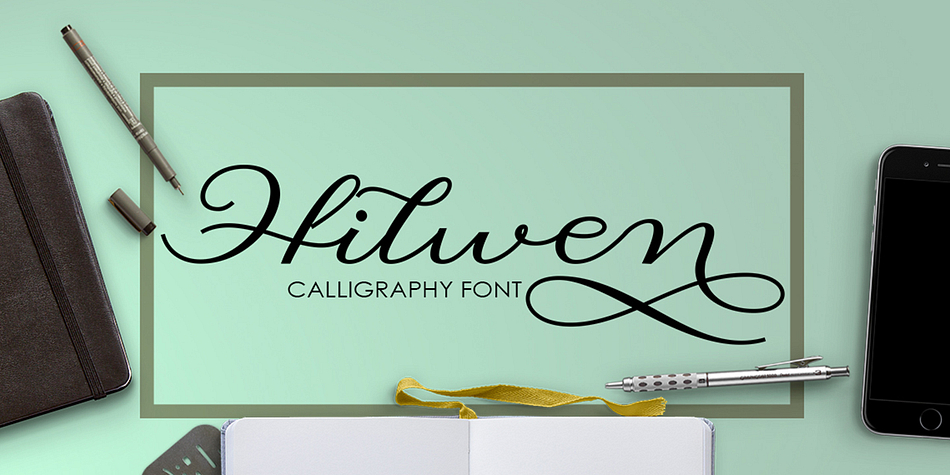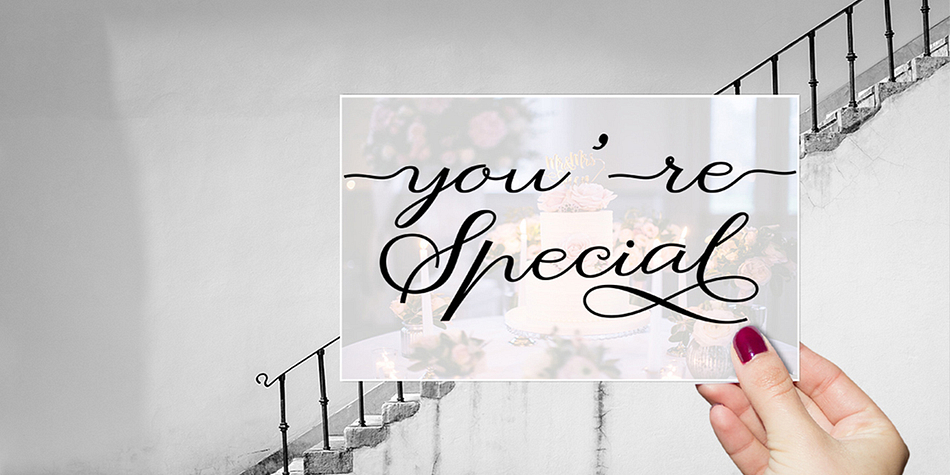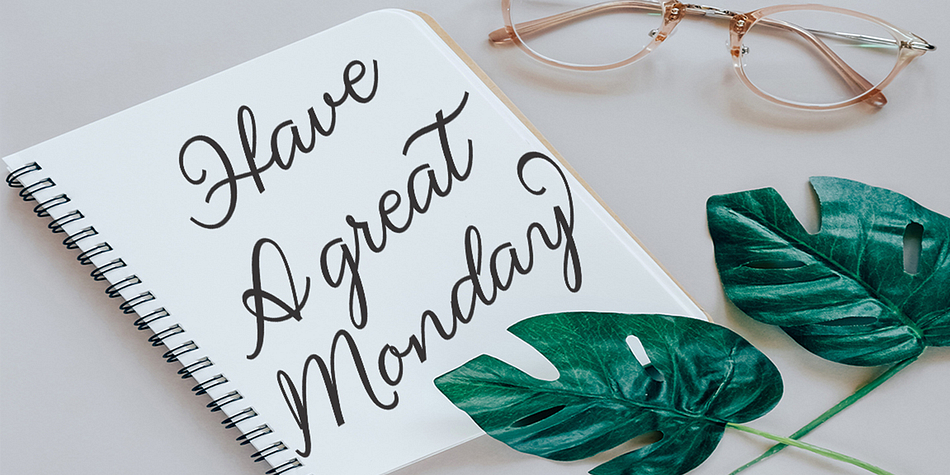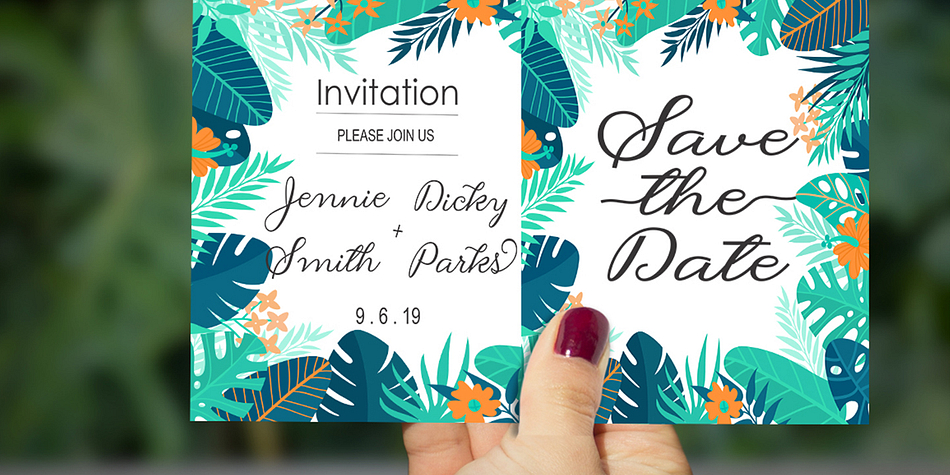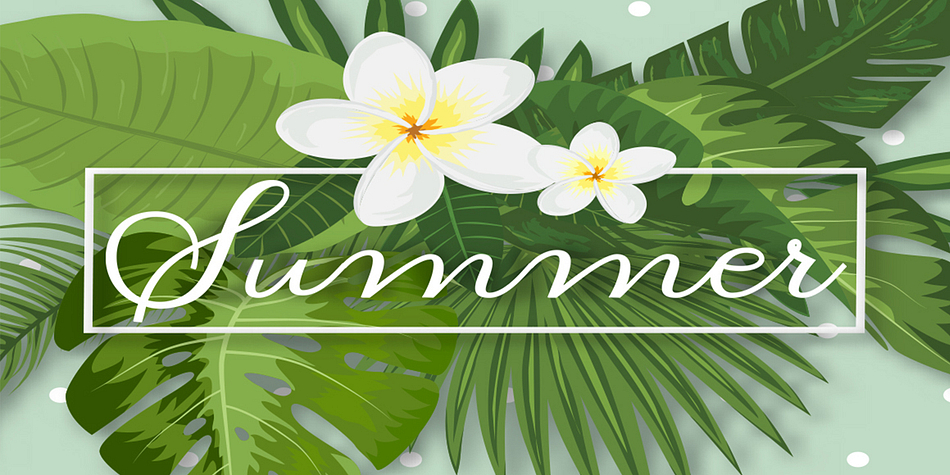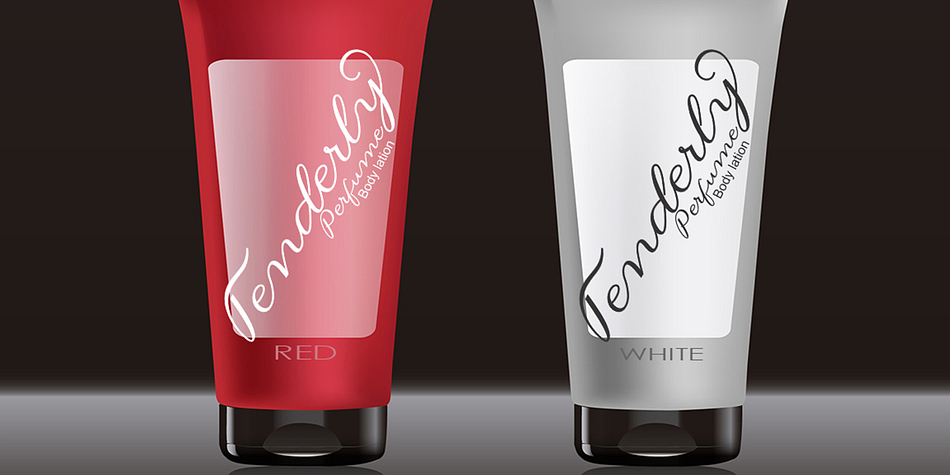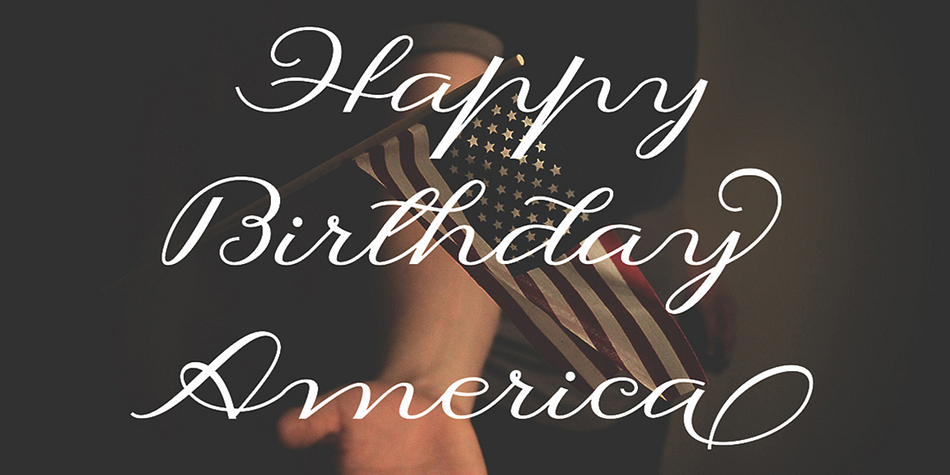
Hilwen Script is a script font family. This typeface has two styles and was published by Picatype Studio.
Hilwen Script is a modern calligraphy design, including Regular and Bold Script. This font is casual and pretty with swashes. It can be used for various purposes such as signatures, logos, product packaging, wedding invitations, branding, headlines, signage, labels, book covers, posters, quotes and more.
Hilwen Script features OpenType stylistic alternates, ligatures and International support for most Western Languages is included. To enable the OpenType Stylistic alternates, you need a program that supports OpenType features such as Adobe Illustrator CS, Adobe Indesign & CorelDraw X6-X7, Microsoft Word 2010 or later versions.